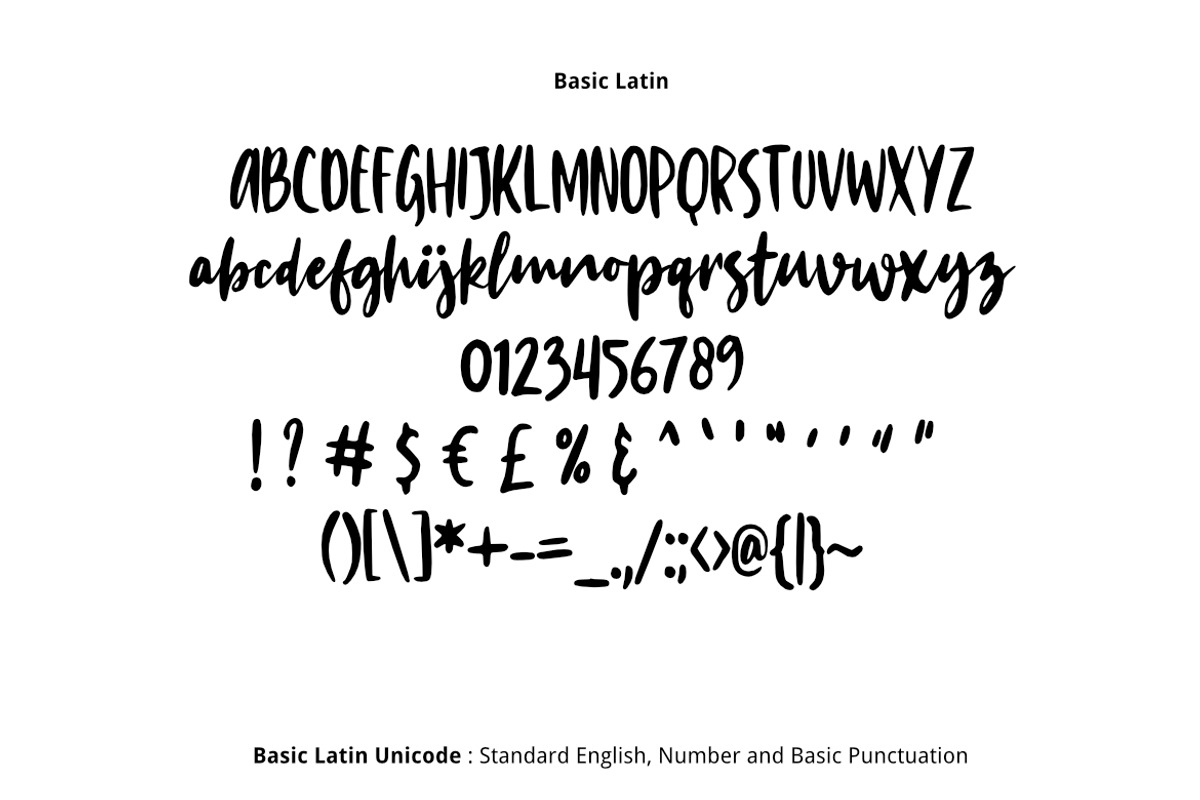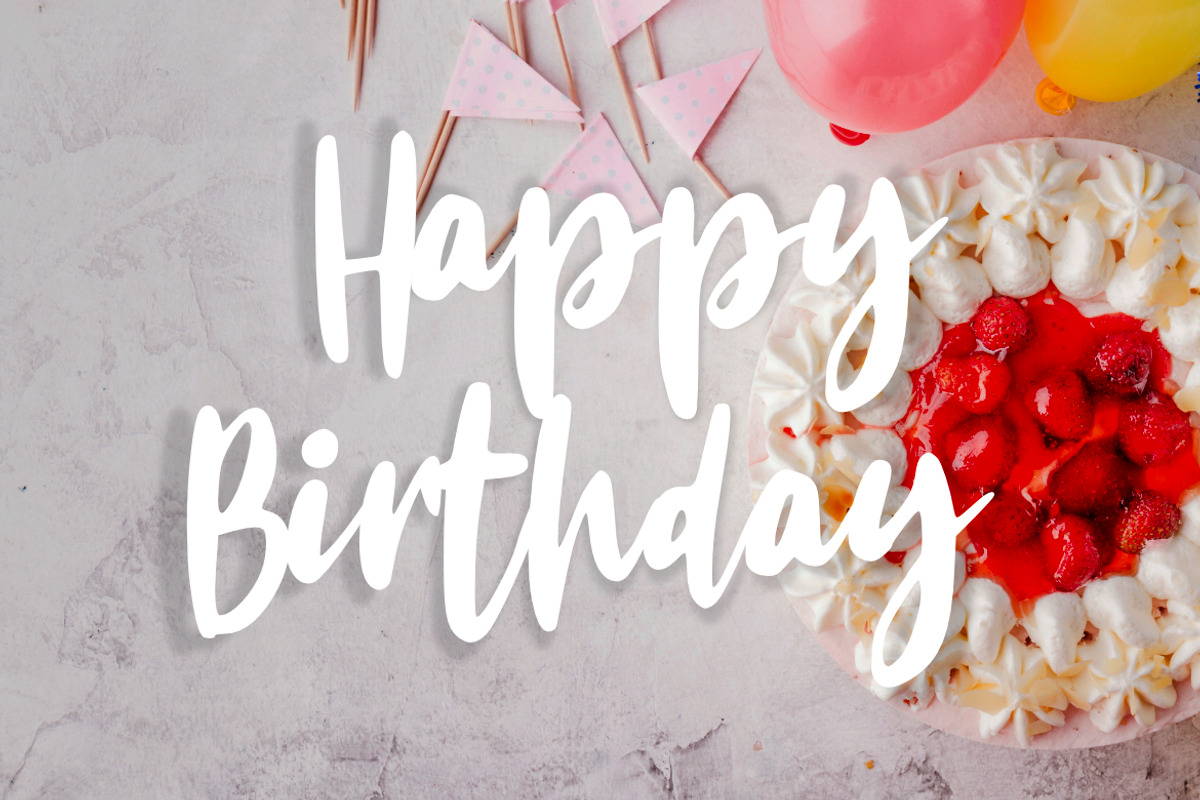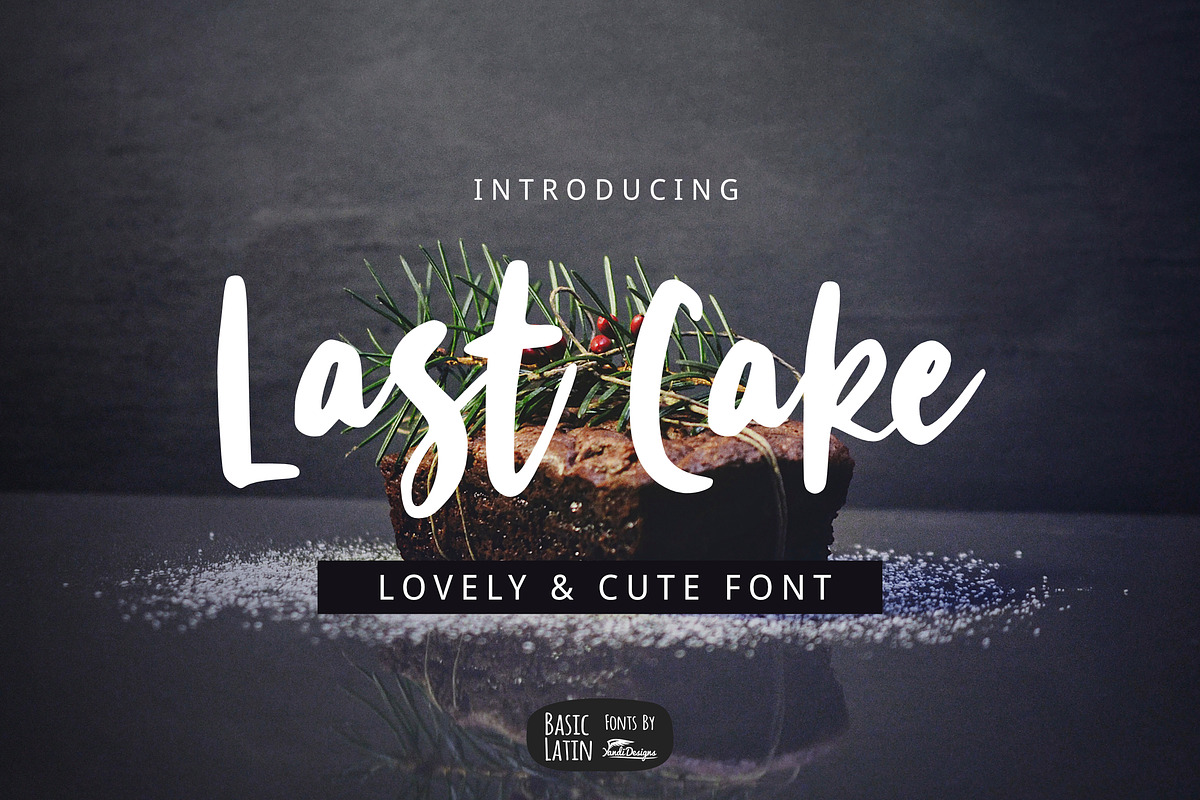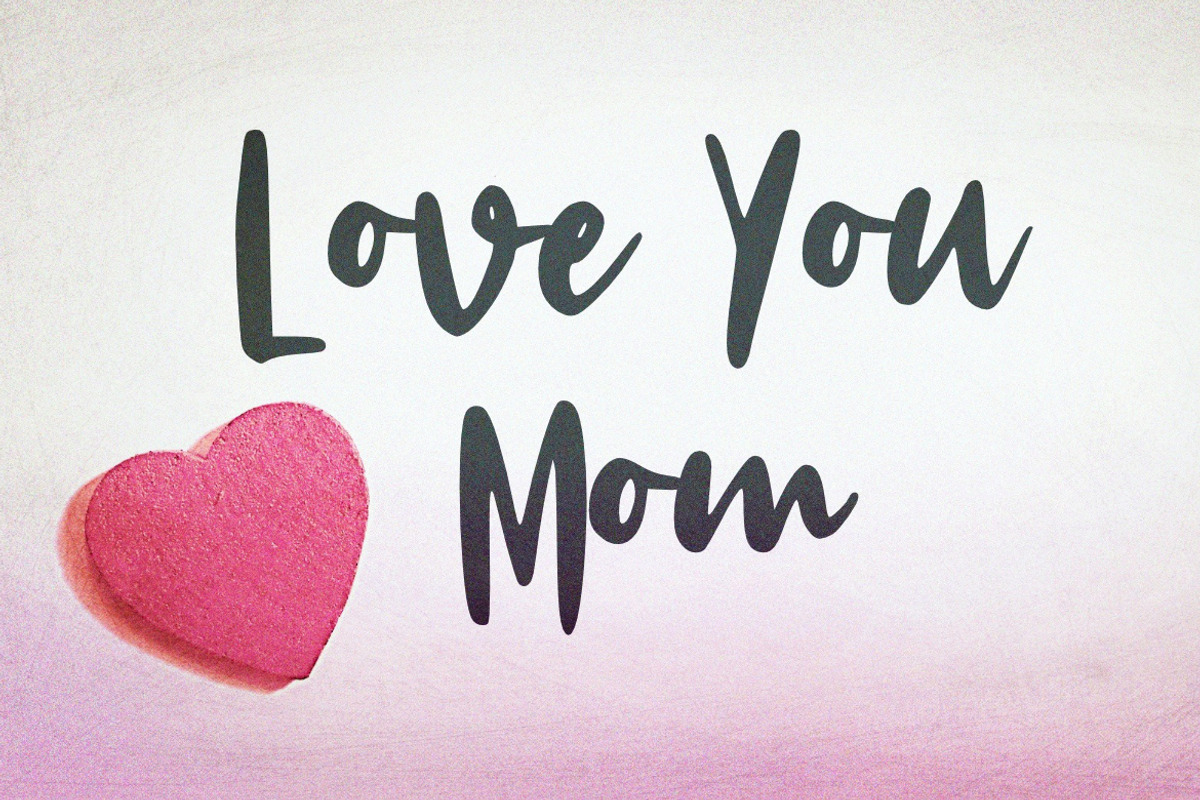
Last Cake Font
Last Cake is simple and lovely multipurpose script font , suitable for many project children book, quotes, logo , heading , title etc.
Why Last Cake Font is worth a look
Last Cake Font by YandiDesigns fits naturally into Branding, posters, packaging, typography.